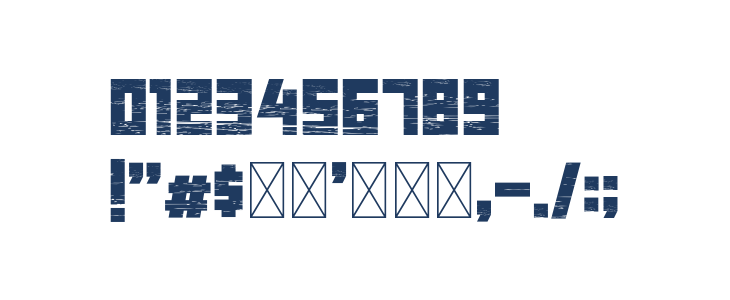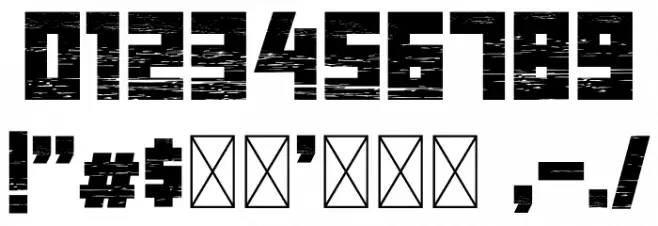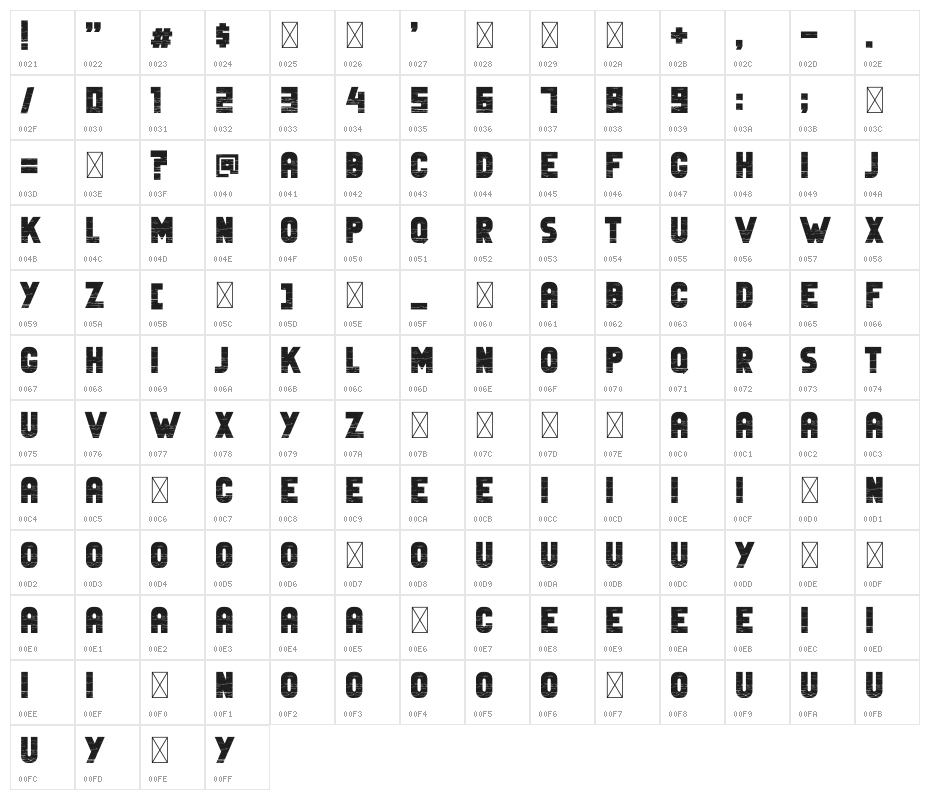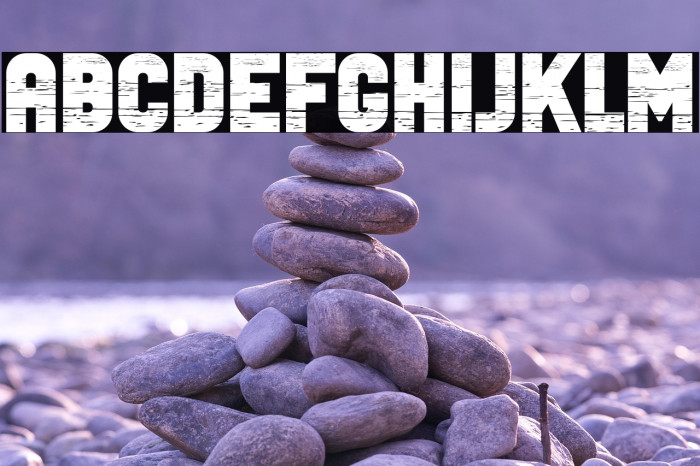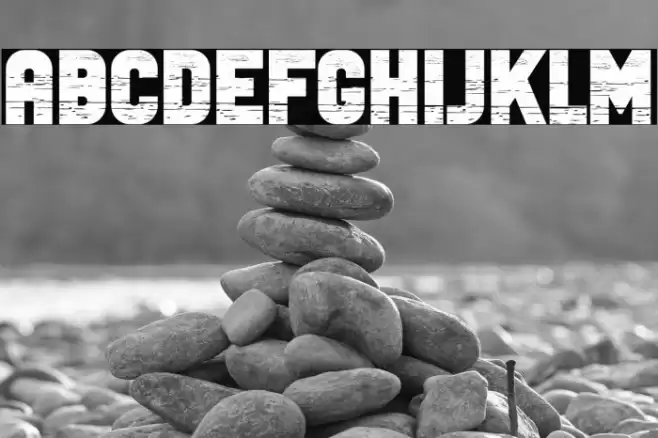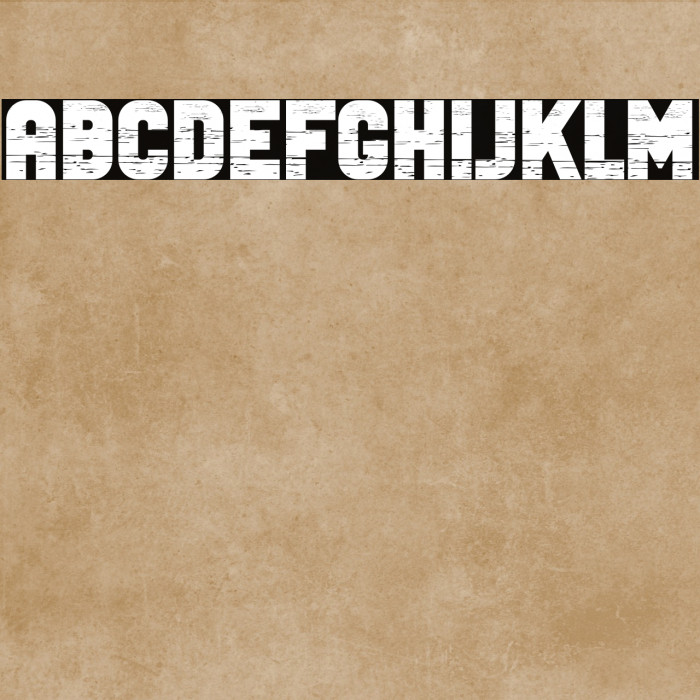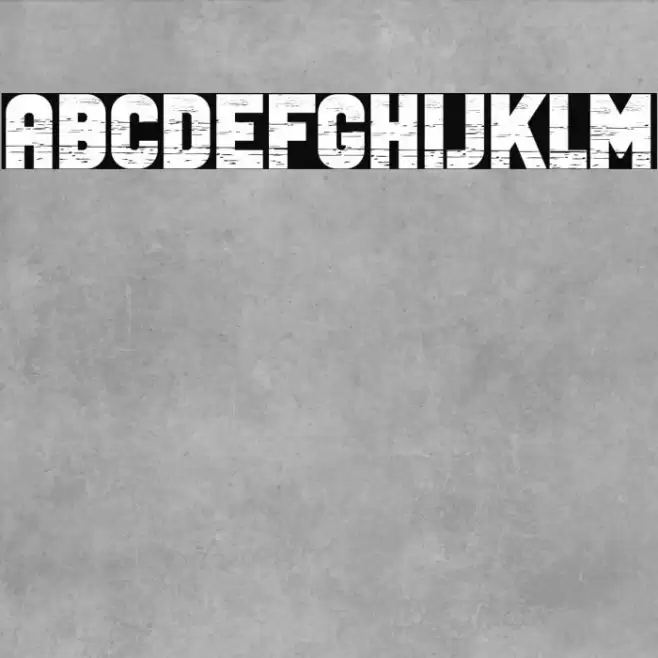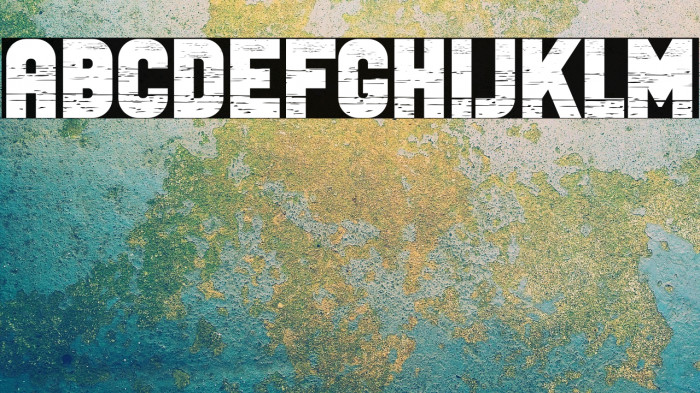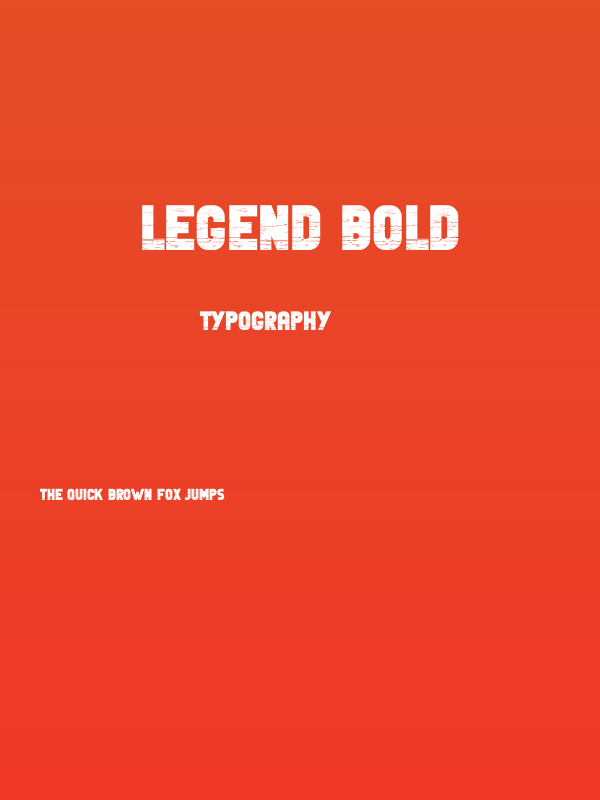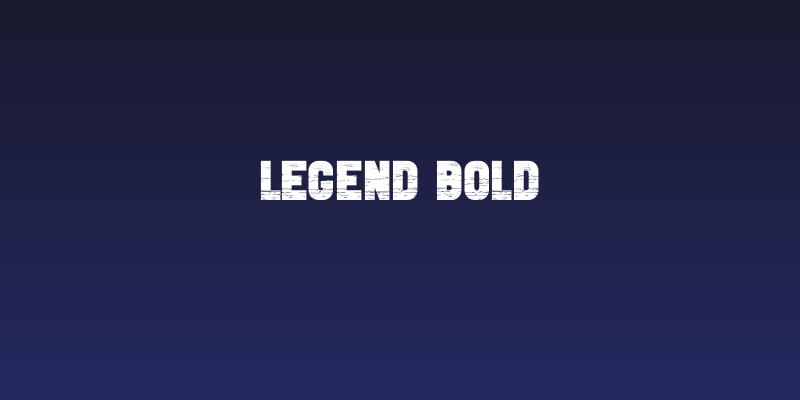
Legend Bold Font
Legend Bold Description
This bold, decorative font features a distressed, textured appearance that gives it a rugged and edgy look. The uppercase letters are blocky and robust, with a consistent width that enhances their strong presence. The numbers and special characters maintain this bold style, ensuring a cohesive look across all characters. The font's unique texture adds a vintage, worn effect, making it ideal for projects that require a bold statement with a touch of character. The spacing between characters is normal, allowing for readability while maintaining its distinctive style.
| Overall Style | Vintage, Decorative |
| Proposed Projects | Ideal for posters, album covers, branding, and any project needing a bold, vintage look. |